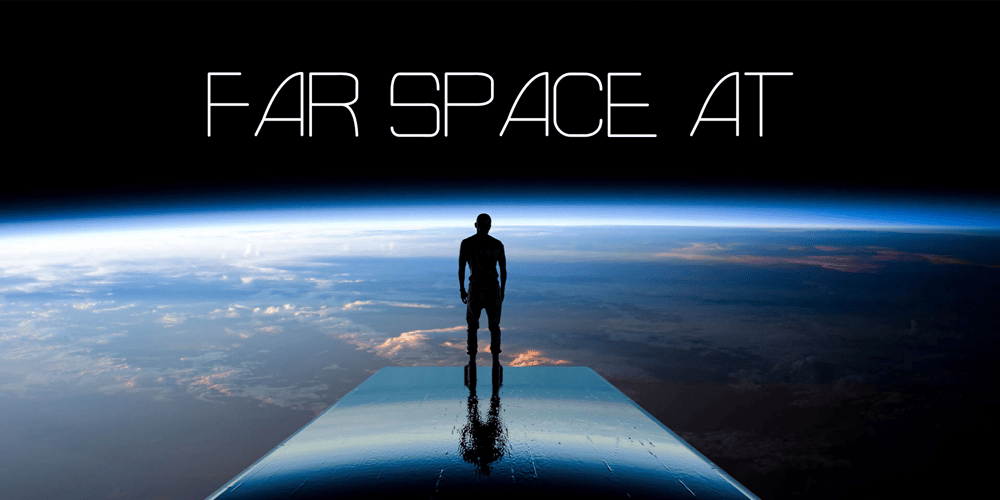
Far Space AT Font Family was designed by Andrew Tomson and published by Andrew Tomson. Far Space AT contains 6 styles and family package options. Hi, friends! Sitting under the starry sky, I thought about extraterrestrial life and was inspired. I imagined if there was extraterrestrial life and their means of communication. The outline of this font popped up in my mind and I quickly sketched it out so I wouldn’t forget it! This font is great for logos, quotes, space-themed inscriptions, it’s also just pleasing to the eye and makes you think about the extraterrestrial!